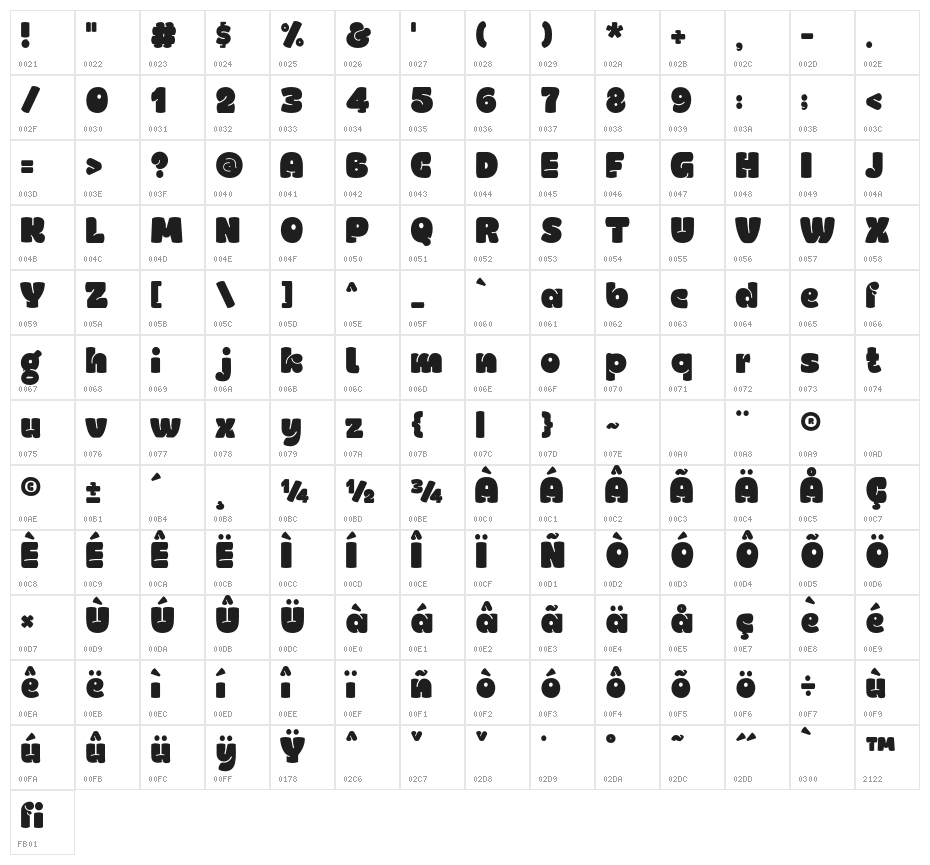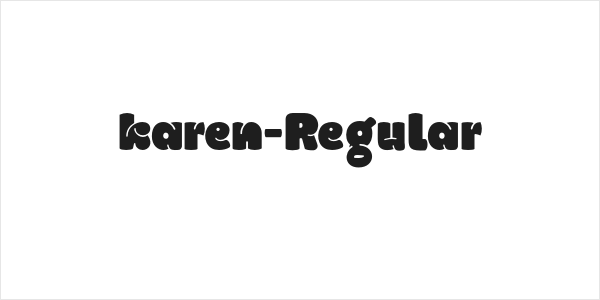
karen-Regular Font
karen-Regular Description
This font features a bold and playful design with rounded edges and a heavy weight, making it stand out with a strong presence. The characters are uniformly thick, contributing to a cohesive and robust appearance. The rounded terminals and consistent stroke width give it a friendly and approachable feel. Its unique style is characterized by a bubbly and soft aesthetic, which is both eye-catching and versatile. The font maintains a consistent baseline and x-height, ensuring readability while adding a touch of whimsy. It is particularly suitable for projects that require a fun and engaging visual impact.
| Overall Style | Playful, Modern |
| Proposed Projects | Ideal for children's books, playful branding, posters, and social media graphics. |